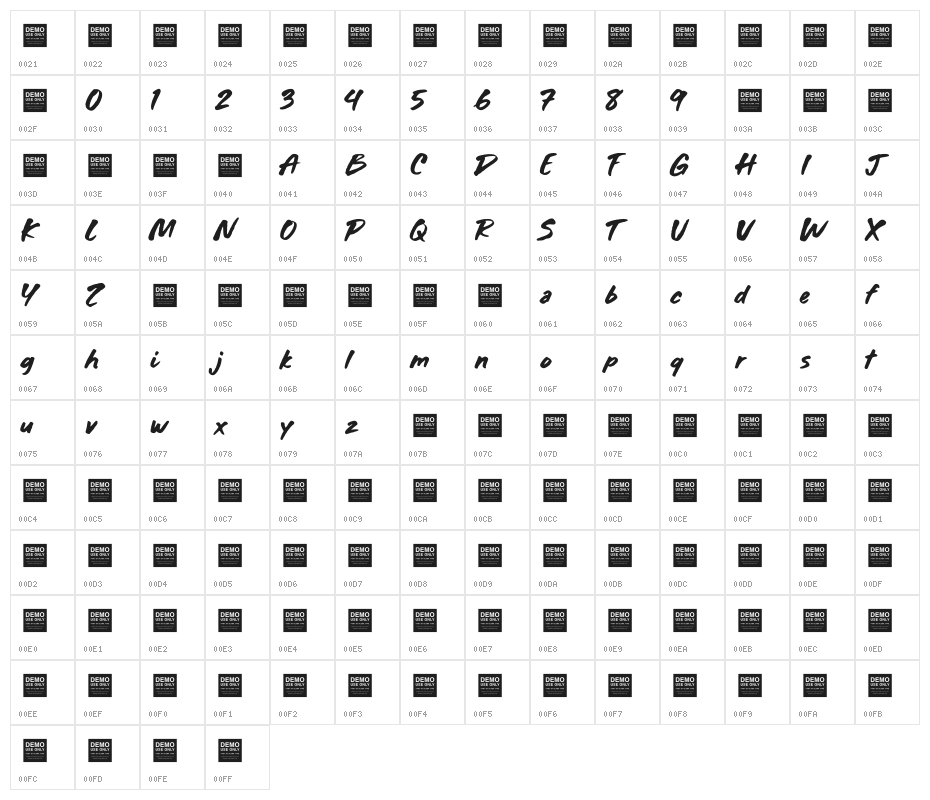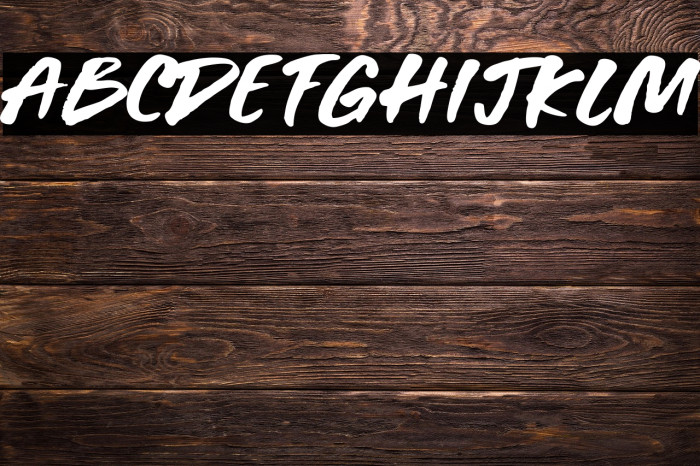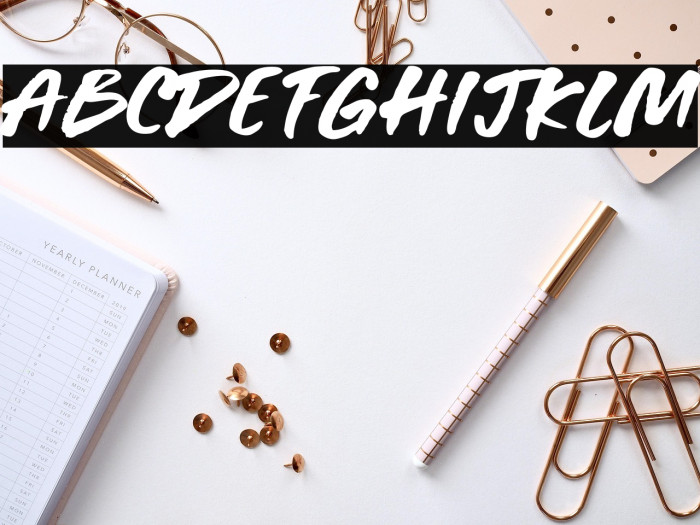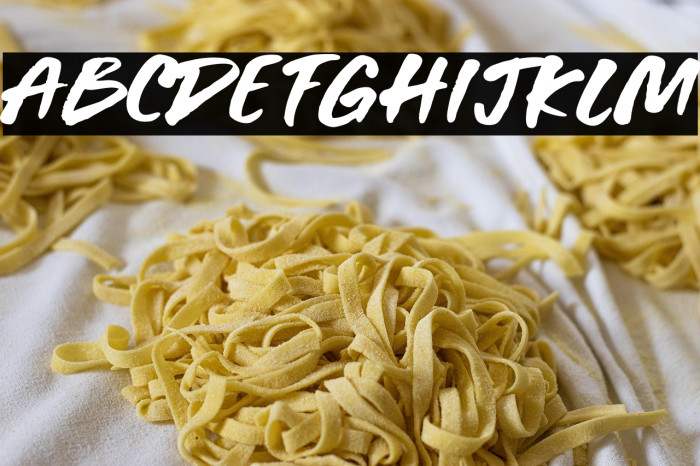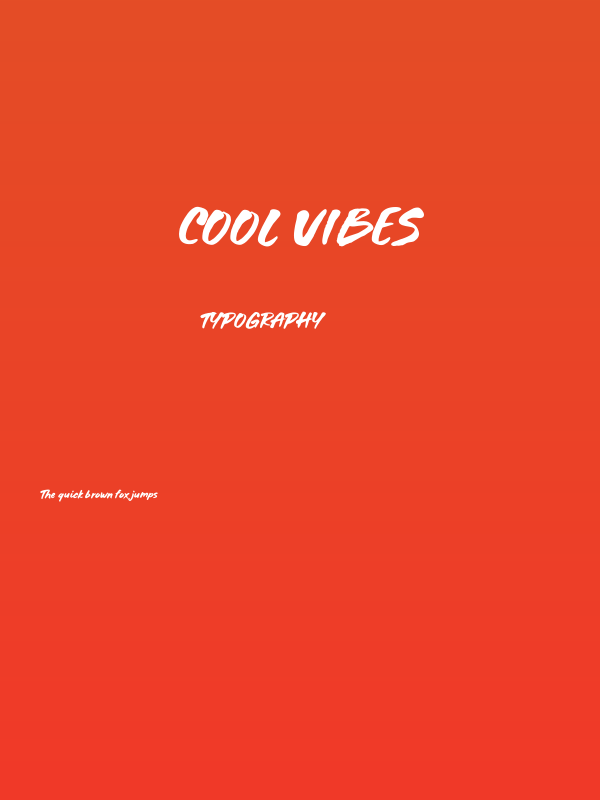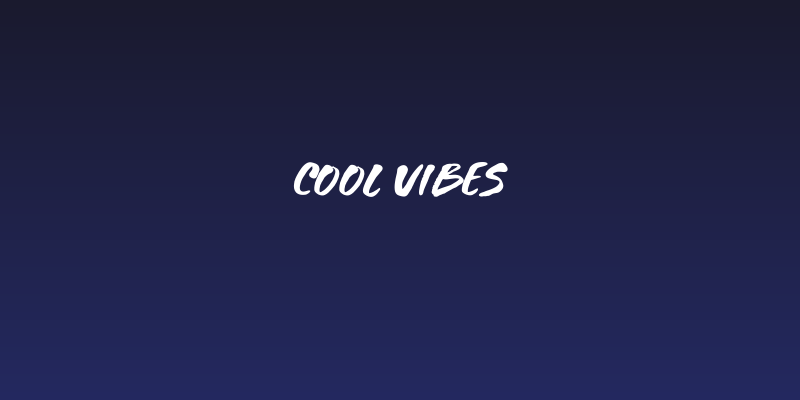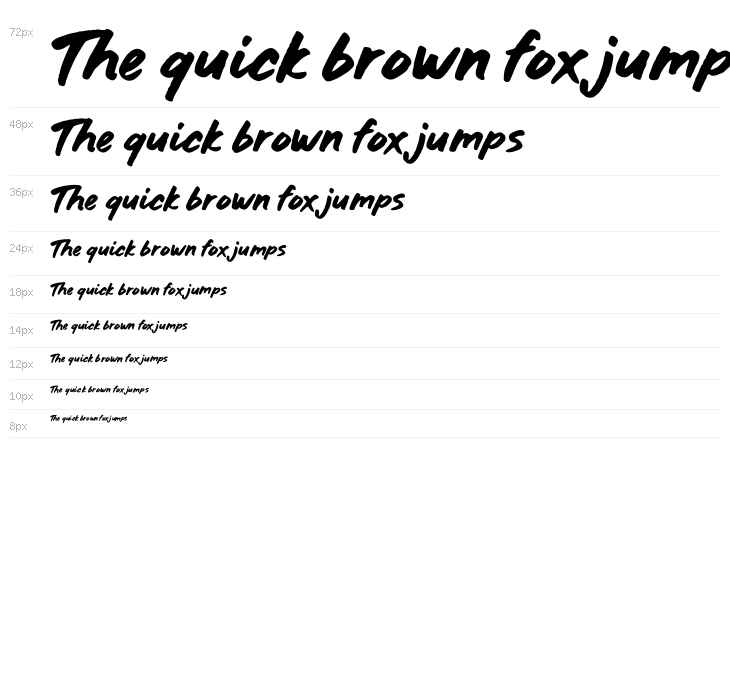
Cool Vibes Font
Cool Vibes Description
This font exudes a lively and energetic vibe with its bold, brush-like strokes that give it a handwritten appearance. The letters are slightly slanted, adding a sense of motion and dynamism. The uppercase characters are robust and commanding, while the lowercase letters maintain a consistent flow, enhancing readability. The numerals are equally bold, ensuring they stand out. This font's playful and informal style makes it ideal for projects that aim to convey a sense of fun and creativity.